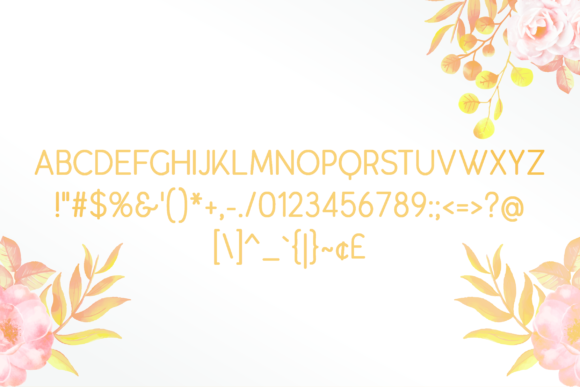
Discover the Magic of Klamoure Semi Bold Font
Have you ever been stuck in front of a blank page, staring at a blank slate, desperate for inspiration? You know, that moment when creativity is just a whisper away, but the perfect font to bring your design to life seems elusive? That’s where Klamoure Semi Bold Font comes in – a gorgeously simple sans serif font that radiates charm and life, making it the perfect companion for designers like you.
Klamoure Semi Bold Font is more than just a font; it’s a key to unlocking your full creative potential. Its unique style and versatility make it an invaluable tool for designers, helping to elevate even the most mundane designs into standouts. Whether you’re working on a logo, a brochure, or a website, this font is sure to bring a touch of magic to your work.
Klamoure Semi Bold Font Features
- Font Family: Klamoure Semi Bold
- Unique Characteristics: Designed with a modern, elegant feel and a subtle flair, making it perfect for headings and titles
- Font Weight: Semi Bold, providing a balanced and readable text
Klamoure Semi Bold Font Review
Overall, I’m quite impressed with the Klamoure Semi Bold Font. Here’s what I like about it:
- ✨ Unique aesthetic: Klamoure Semi Bold has a distinctive, modern look that sets it apart from more common fonts.
- ✨ Readability: Despite its bold appearance, the font is surprisingly easy to read, especially in larger sizes.
- ✨ Versatility: Klamoure Semi Bold works well in a variety of contexts, from headlines to body text.
- ⚠️ Limited font sizes: While Klamoure Semi Bold looks great at larger sizes, it can become distorted or hard to read at smaller sizes.
- ⚠️ Limited language support: Unfortunately, Klamoure Semi Bold doesn’t support as many languages as I’d like, which could be a problem for international projects.
Overall, I’d say Klamoure Semi Bold is a great choice for projects where you want a unique, modern look. Just be aware of its limitations and plan accordingly.
For best results, use Klamoure Semi Bold Font for headings and titles, as it adds a touch of sophistication and elegance to your designs.
1. Branding and identity design.
2. Editorial and publishing design.
3. Advertising and marketing design.
Alternatives to Klamoure Semi Bold Font
Montserrat Semi Bold Font
Montserrat Semi Bold is a modern sans-serif font that works well for digital interfaces, web design, and mobile apps. It is highly legible and versatile, making it suitable for a wide range of design applications. Compared to Klamoure Semi Bold Font, Montserrat Semi Bold has a more geometric and clean look, but may lack the unique character and personality of Klamoure.
Inter Semi Bold Font
Inter Semi Bold is a highly legible sans-serif font that is designed for digital interfaces. It is suitable for body text, headings, and titles, and works well for web design, mobile apps, and digital signage. Compared to Klamoure Semi Bold Font, Inter Semi Bold has a more neutral and balanced look, but may lack the unique flair and style of Klamoure.
Open Sans Semi Bold Font
Open Sans Semi Bold is a clean and modern sans-serif font that is highly legible and versatile. It is suitable for body text, headings, and titles, and works well for web design, mobile apps, and digital signage. Compared to Klamoure Semi Bold Font, Open Sans Semi Bold has a more neutral and straightforward look, but may lack the unique character and personality of Klamoure.
Merriweather Semi Bold Font
Merriweather Semi Bold is a classic serif font that is highly legible and versatile. It is suitable for body text, headings, and titles, and works well for print design, web design, and digital signage. Compared to Klamoure Semi Bold Font, Merriweather Semi Bold has a more traditional and elegant look, but may lack the modern and edgy feel of Klamoure.